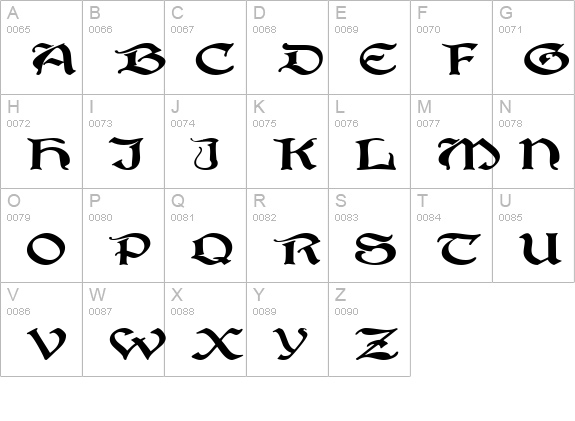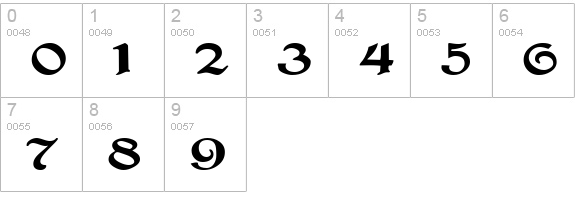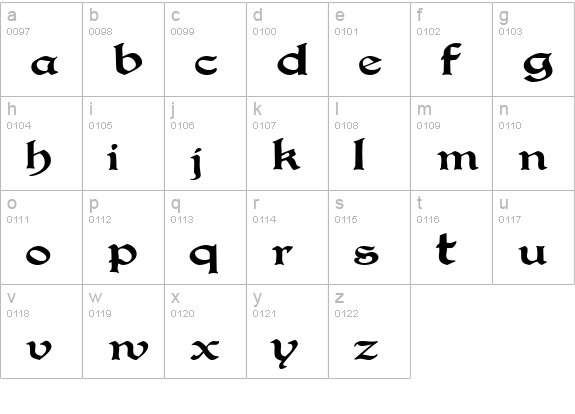
BucaneerSSK Font Details
BucaneerSSK font is a charming and playful typeface that exudes a sense of adventure and whimsy. Its bold strokes and unique letterforms make it perfect for adding a touch of personality to your projects. Whether you're designing a poster, logo, or invitation, BucaneerSSK will make your text stand out in a fun and eye-catching way. The best part? BucaneerSSK font is completely free to download at FontsMarket.com. This means you can easily access this versatile font and use it in your personal or commercial projects without any cost. So go ahead and add a touch of swashbuckling style to your designs with BucaneerSSK font today!